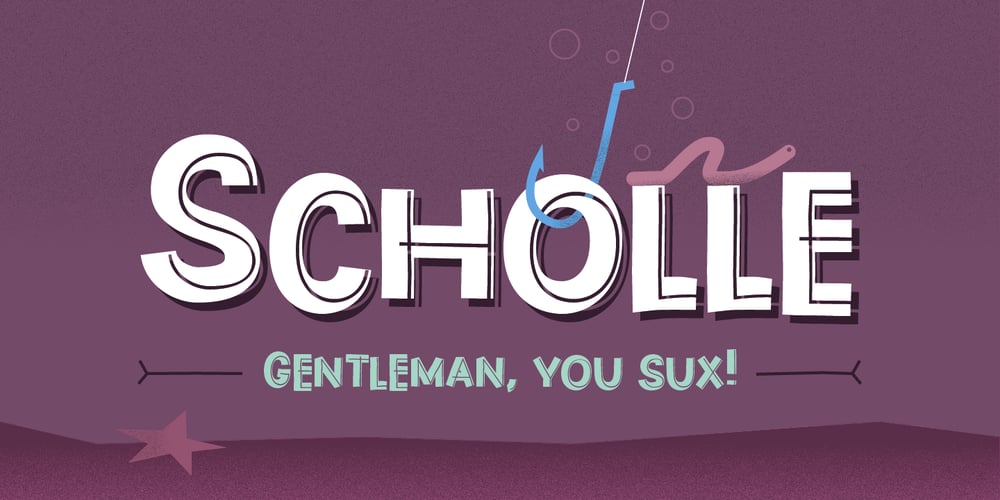
Scholle Font Family was designed by Dusan Jelesijevic and published by Tour De Force. Scholle contains 2 styles and family package options. Characterized as inline display font family with childish manners, Scholle offers positive (Shadow) and negative (Regular) weights grouped by bouncing rhythm of its characters.